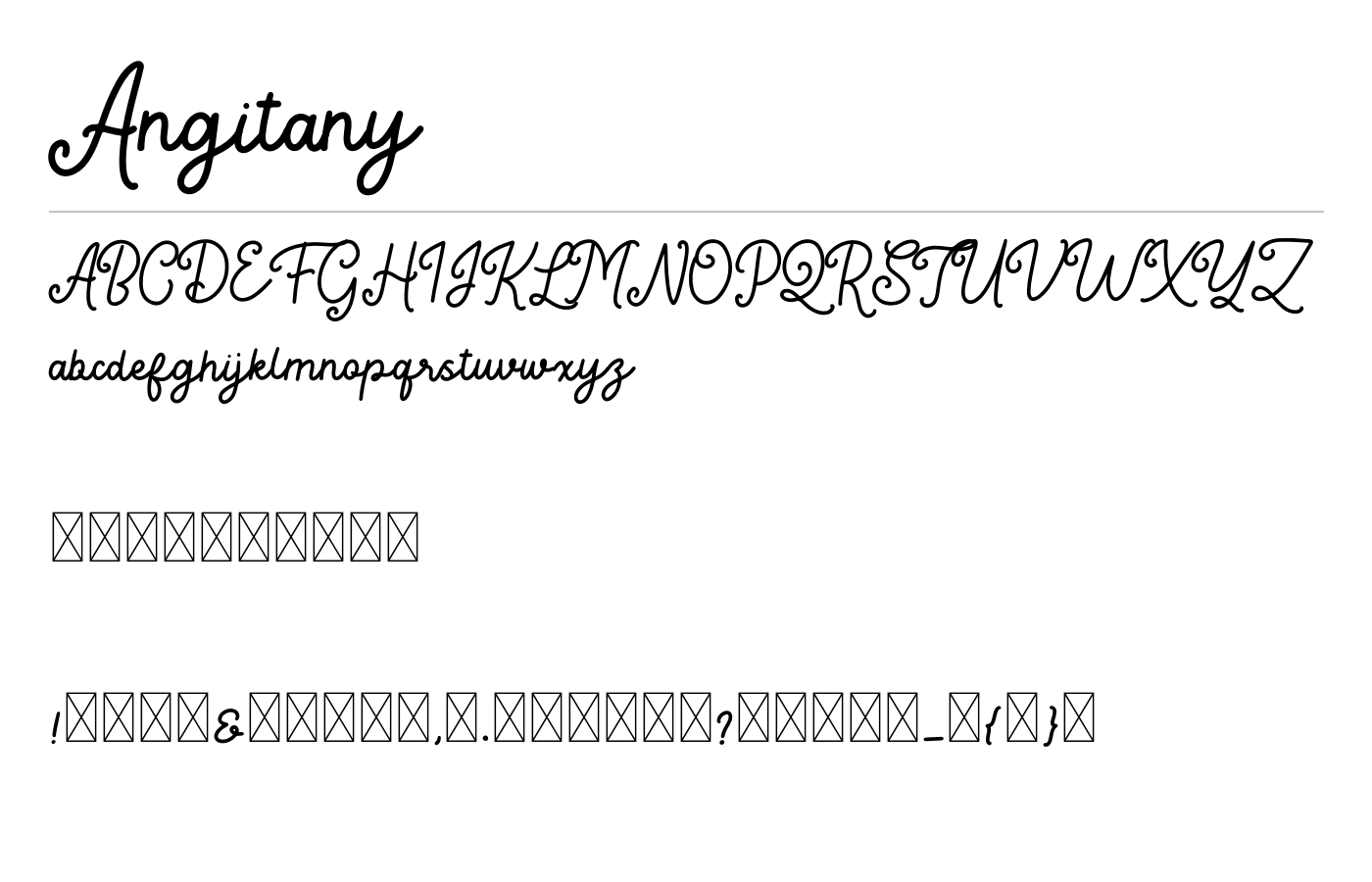
Angitany is a delicate script font with smooth, flowing lines that convey a warm and friendly personality. Its elegant uppercase features charming swashes, while the lowercase letters are simple yet graceful, making it ideal for invitations, branding, and decorative projects seeking a personal touch. This font works well in both digital and print contexts where a refined, handcrafted appearance is desired.
Angitany Font
About Angitany Font